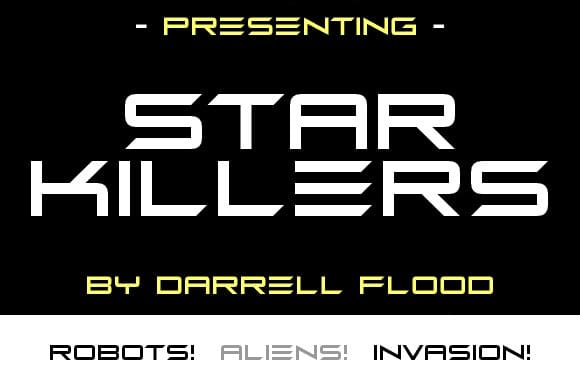
Star Killers Font
Star Killers Font, a slick science fiction font that incorporates both harsh edges and crisp curves. Perfect for alien invasions, space exploration and general modern or high-tech use!